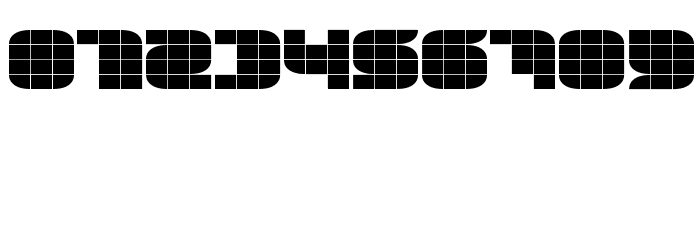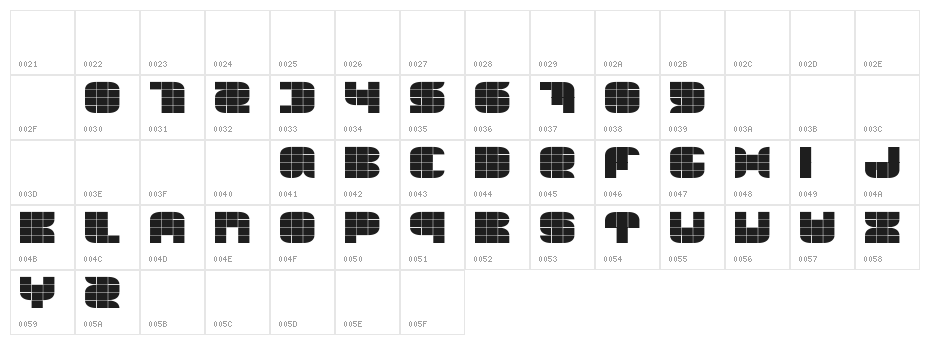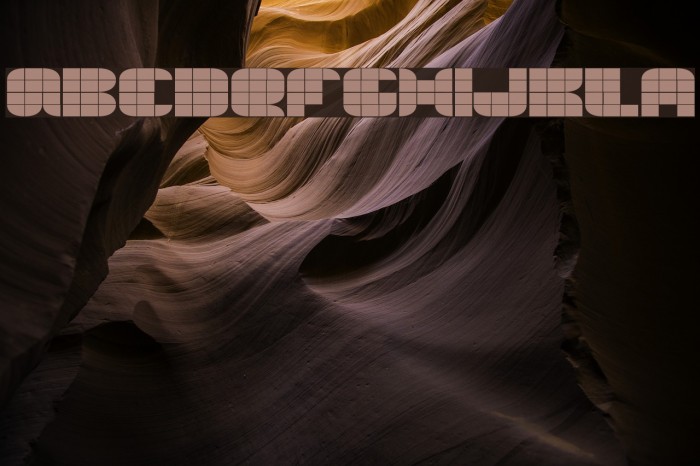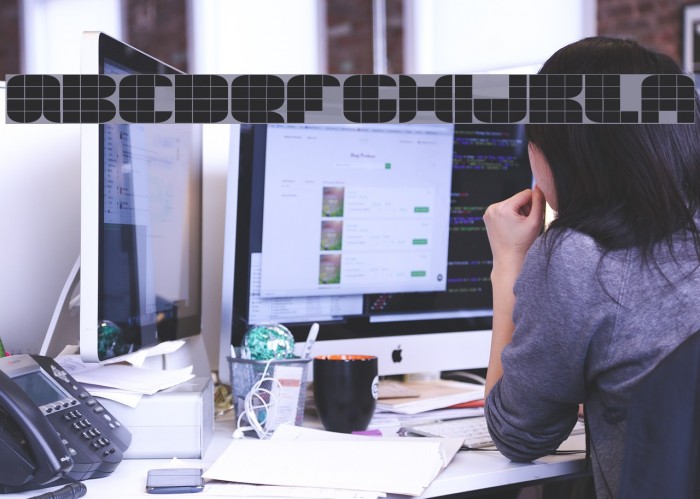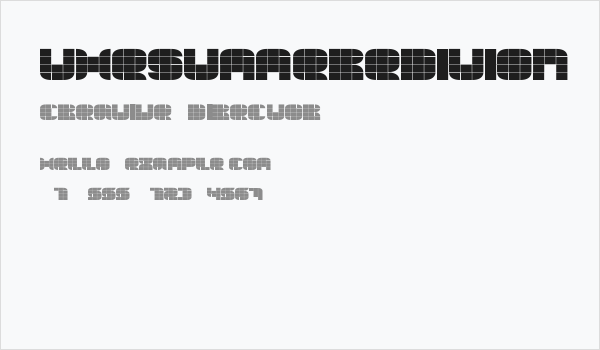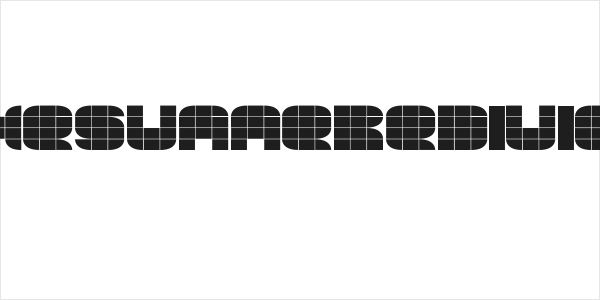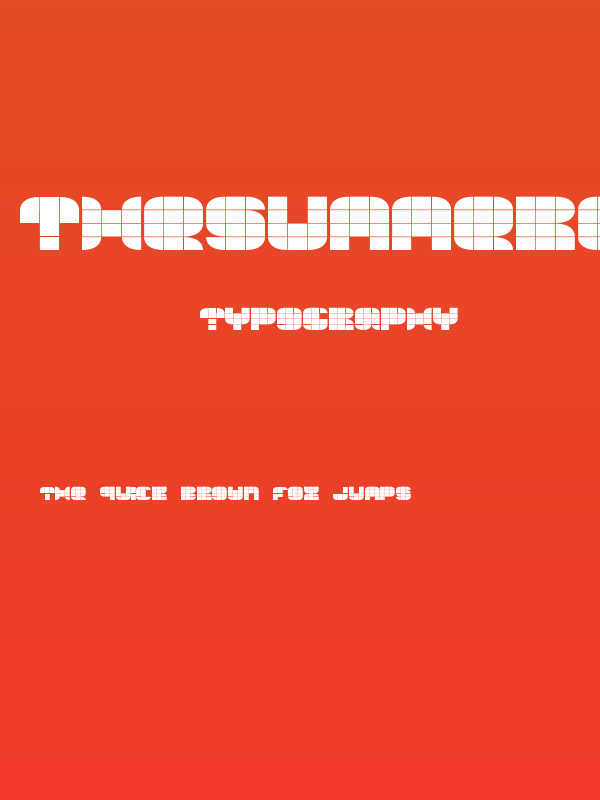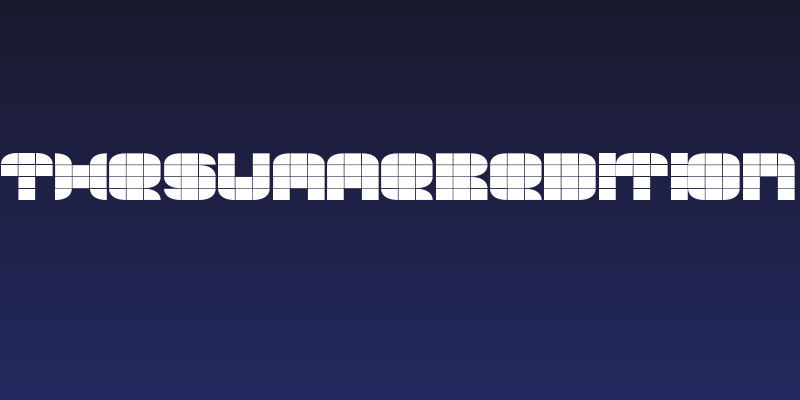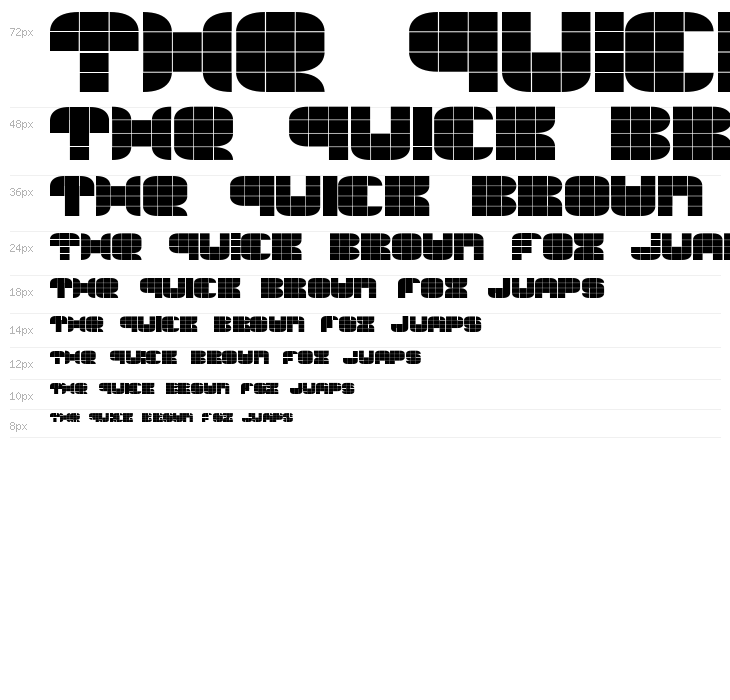
thesummeredition Font
thesummeredition Description
This font features a bold and geometric design, characterized by its grid-like structure that forms each letter. The characters are composed of solid black blocks arranged in a pattern that creates a sense of rhythm and uniformity. The font's design is highly modern and futuristic, with a strong emphasis on symmetry and balance. Each letter is distinct yet cohesive, maintaining a consistent height and width across the alphabet. The numbers and special characters follow the same stylistic approach, ensuring a seamless integration with the letters. This font is ideal for projects that require a bold and striking visual impact.